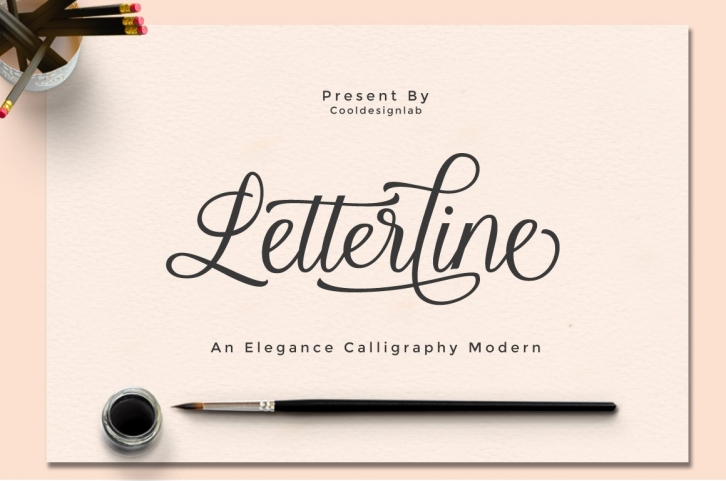
Letterline FONT Download
Letterline is a calligraphy writing font that I created with all my heart, a long time and without haste so this font presents an elegant style and comes with a beautiful alternative character. Like the typeface that is smooth, clean, feminine, sensual, glamorous, simple and very easy to read. His style is perfect to apply in all types of official pieces such as invitations, labels, menus, logos, fashion, make up, stationery, letterpress, romantic novel, magazines, books, greeting / wedding cards, packaging, bag, labels.